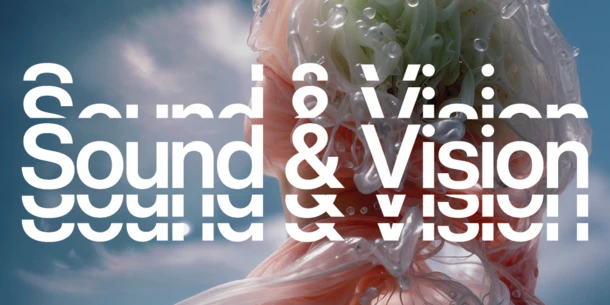
Monotype and Audiosocket collaborate for AI exploration of Sound & Vision ‘brand synesthesia’
WOBURN, Mass., March 10th, 2025 — Monotype Imaging Inc., a global leader in type and technology, has collaborated with Audiosocket, a pioneer in music licensing and sound innovation, with an AI-mediated exploration of the intersections of sound and typography and the future of “polysensory” brand experiences. This collaboration is the first in a series of planned activations by Monotype, exploring themes from their 2025 Type Trends Report Re:Vision with a variety of creative partners throughout the year. Following the theme Sound and Vision, this collaboration invites creatives to blend the worlds of type and music using Sonotype an innovative new creative platform.
Music has long been recognized as “the shorthand of emotion,” but typography also has the power to evoke feelings. Monotype’s extensive international research with applied neuroscience company Neurons revealed that different font styles illicit different associations around feelings of trust, quality, and innovation. Now, Sonotype allows users to explore the hidden emotive connections between fonts and music, as Sonotype’s AI-enabled tools generate inspiring pairings from Monotype’s library and Audiosocket’s artist catalog.
The AI pairing technology was built by Audiosocket in collaboration with Monotype and is powered by AIMS search API. As users play with these connections in Sonotype over the course of the year, the results will allow Audiosocket and Monotype to uncover more new insights on the connections between type and sound. The curated selection of Monotype fonts combines iconic designs with unexpected hidden gems, including Gotham®, Albertus® Nova, Macklin™, and Cotford™.
Synesthesia, a superpower in which one sense triggers another, is common among creatives. Using instinct and experience, designers and creatives pair visual and auditory elements to evoke emotion and convey meaning. Yet, until now, there have been no tools to systematically connect sound and typography for “polysensory” brand experiences. Sonotype addresses this gap, using metadata and AI to help creatives quickly discover both fonts through sound and sound through fonts. This interplay of music and typography creates memorability and is a cornerstone of emotive branding.
Sonotype leverages Audiosocket’s vast music catalog with AIMS’ AI-enabled tagging and a curated selection from Monotype’s library to find hidden connections in the metadata and inform and enrich recommendations. This descriptive metadata, validated by human experts, feeds an AI model that then identifies connections between sound and typography based on user prompts. The result is an intuitive app that provides paired audio-typographic recommendations to help creatives create polysensory brand experiences. As users experiment and explore the app, contributing prompts and feedback throughout the year, Sonotype will continue to learn and grow.
Jenn Anderson-Miller, CEO at Audiosocket said; “Working in the music sync industry, we think about the interplay between sight and sound every day. Sound and typography are two sides of the same creative coin — just as a font can convey an emotion, so can a melody or a soundscape. By combining our expertise with Monotype’s, we developed Sonotype to deepen our understanding of these connections and uncover the human insights that shape creative decisions. With the findings from this experimentation, we aim to bring these innate connections to light and harness them to drive meaningful impact.”
Charles Nix, Senior Executive Creative Director at Monotype said; “Brand, at its best, is a seamless coming together of type, color, vision, and sound, to create polysensory and emotive experiences. Brands operate in a multimedia world that’s increasingly mediated by AI, and creatives need intelligent new tools to make informed and inspired design choices. We’re excited to showcase Sonotype as a new creative exploration of how such tools can work and how they can help creatives find new meanings in the interplay of sound and vision.”
The Sound & Vision project is part of Monotype’s broader strategy to explore the future of brand identity in a multimedia-driven world, with Sonotype offering a glimpse into the future of AI-enabled creative expression.